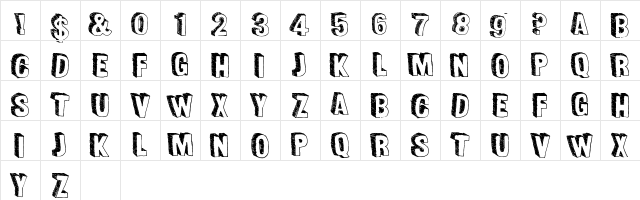
FunSized Regular
Design Context for FunSized Typeface
FunSized trades formality for fun, with bouncy, characterful letterforms that bring warmth and energy to any project.
Font Pairing: Pairs well with a rounded or humanist sans for body copy, maintaining the friendly tone without relying on FunSized to carry extended reading.
Pro Tip: Use FunSized at larger display sizes where its expressive character can land. Pair with a clean, simple sans for body copy to maintain readability.